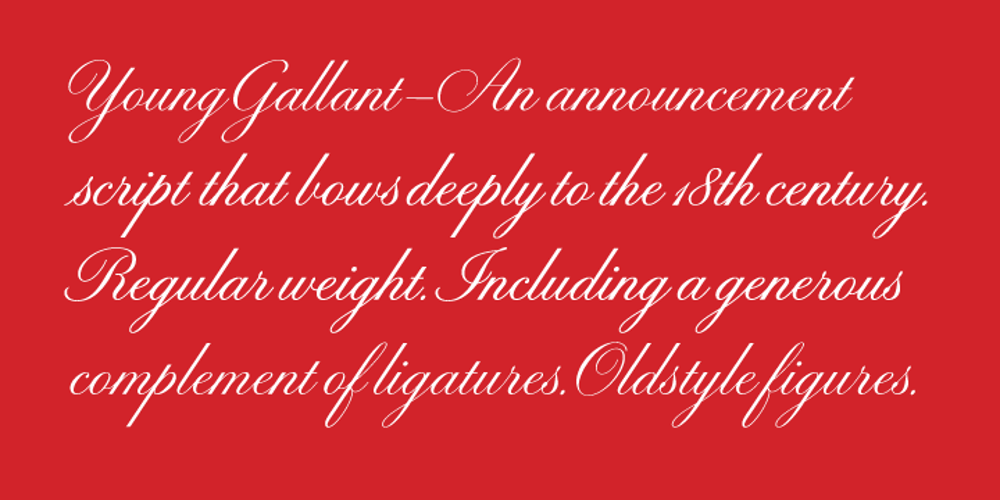
Young Gallant Font Family was designed by Doyald Young and published by Doyald Young. Young Gallant contains 1 styles and family package options. My intent in designing Young Gallant was to create as simple and elegant a formal script as possible. It was developed to illustrate my new book Learning Curves discussing the essence of formal script.